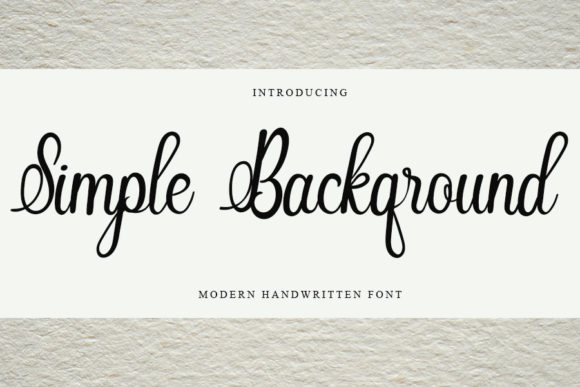
Fonts are the foundation of any strong brand, and they can make all the difference in whether your products stand out from the competition or blend into the background. That's why we're excited to introduce you to Simple Background Font, a new line of fonts that will help you create stunning designs that will capture attention and leave a lasting impression.
Simple Background Font is a casual handwritten font that is perfect for adding a personal touch to your projects. It's carefully designed to maintain its classy calligraphic influences while feeling contemporary and fresh. As a result, it's a versatile font that can be used for a wide range of purposes, from branding and marketing materials to social media posts and website design.
* It's easy to read and understand, even at small sizes.
* It's versatile and can be used for a wide range of purposes.
* It's stylish and will help you create designs that stand out from the competition.